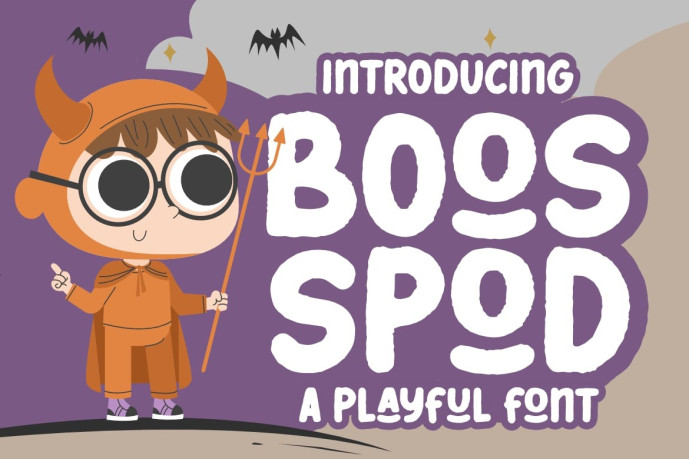
Boos Spod Font
Designer: Bayuktx
Boos Spod Font – Playful Doodle Font is a fun and cheerful display typeface inspired by cute characters, mischievous expressions, and hand-drawn doodle art. Featuring bold rounded shapes, quirky proportions, and imperfect strokes, this font delivers a charming and lively personality.
Designed to capture the joy of creativity, Boos Spod blends cartoon-style lettering with a soft, friendly appearance. The uneven edges and organic forms give it an authentic doodle feel, making every character look expressive, playful, and full of life.
With its approachable and whimsical aesthetic, Boos Spod is perfect for designs that aim to feel fun, cute, and engaging. It brings a unique character that feels lighthearted and imaginative, making it suitable for a wide range of creative projects.